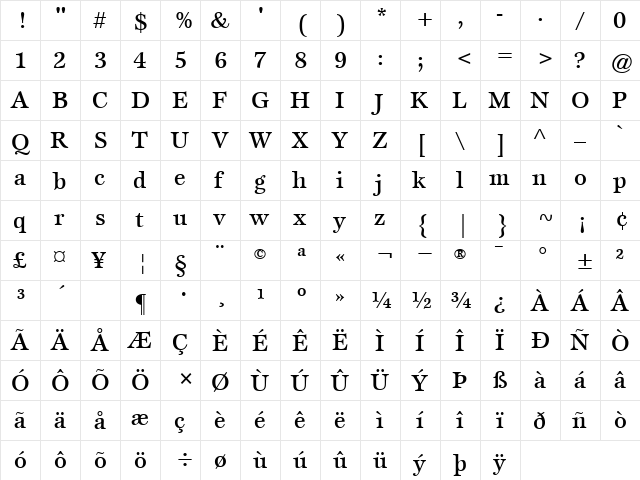
Esprit Medium Font Preview
Esprit Medium
Design Context for Esprit Typeface
Esprit is a composed and adaptable typeface that performs quietly and consistently across a wide range of design contexts.